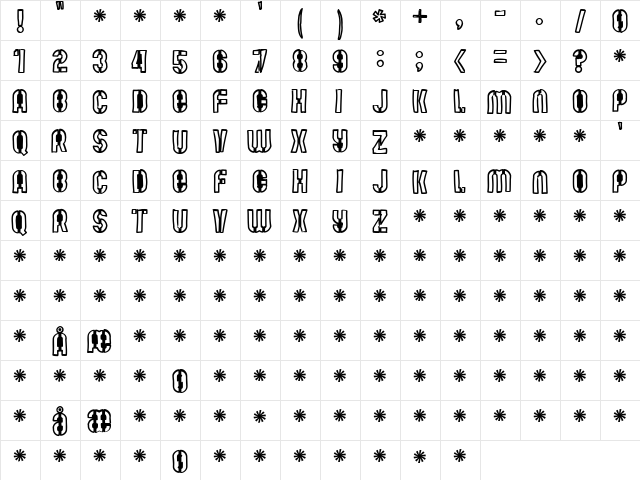
Mute Fruit Black Krash Regular
Design Context for Mute Fruit Black Krash Typeface
Mute Fruit Black Krash is a composed and adaptable typeface that performs quietly and consistently across a wide range of design contexts.